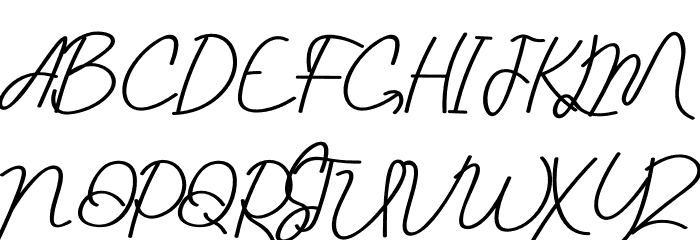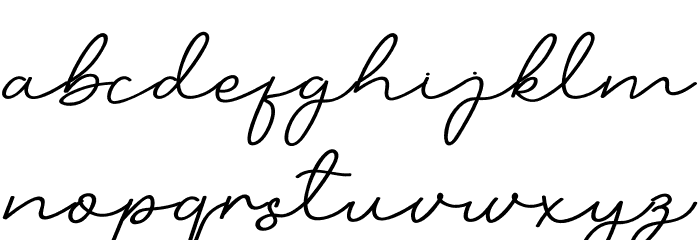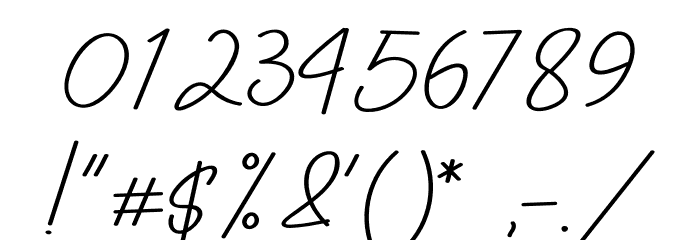
South America Font
A flowing, cursive script font with a handwritten style, featuring smooth, connected strokes and a casual elegance.
Handwritten cursive script font.
- Font: South America
- Proposed Projects: Invitations, greeting cards, personal branding.
- Category: Script
- Overall Style: Casual, Elegant
- Use Case: Logos, Invitations, Personal notes